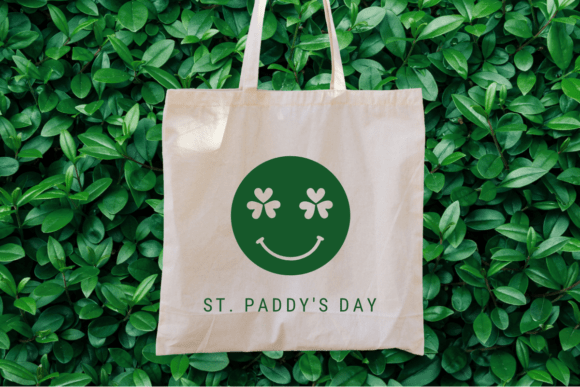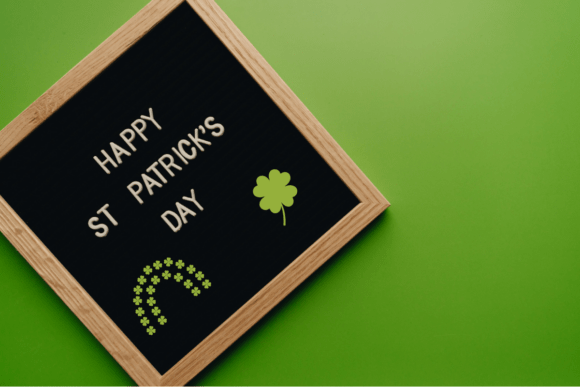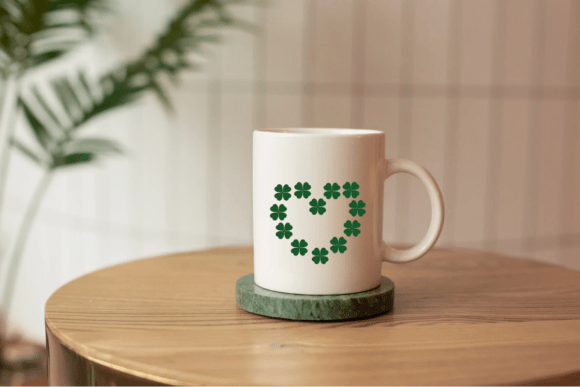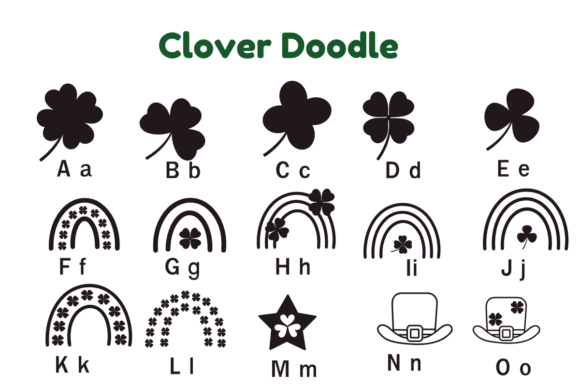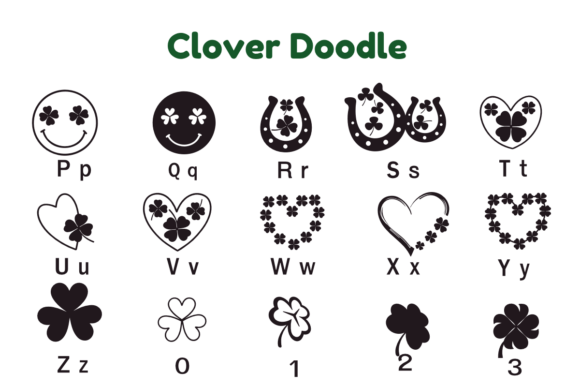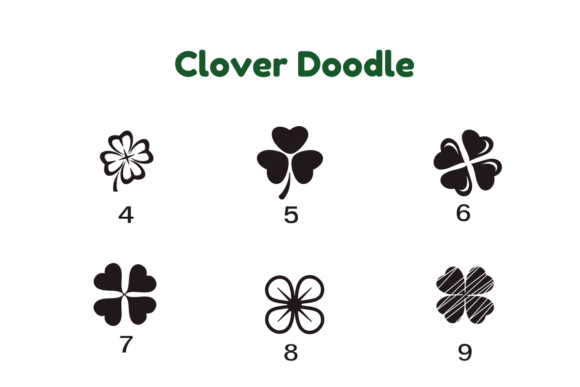
Clover Doodle Font: Elevate Your Creative Projects with a Sketched Theme
Are you a designer, crafter, or DIY enthusiast looking for a unique font to add a personal touch to your projects? Look no further than the Clover Doodle font, a charming dingbats font with a sketched theme that’s perfect for a wide range of creative applications. In this article, we’ll explore the features and benefits of Clover Doodle, and show you how it can enhance your wedding invitations, DIY projects, crafts, decorations, logos, and more.
What is Clover Doodle Font?
Clover Doodle is a dingbats font that features hand-sketched illustrations, giving it a distinctive and whimsical feel. The font is designed to add a touch of personality to your projects, making it ideal for crafty and creative endeavors. With its sketched theme, Clover Doodle is perfect for those who want to add a human touch to their designs.
Features of Clover Doodle Font
- Hand-sketched illustrations: Each character in Clover Doodle is carefully hand-drawn, giving the font a unique and organic feel.
- Dingbats font: Clover Doodle is a dingbats font, which means it’s comprised of illustrations and symbols rather than traditional alphabet characters.
- Versatile: Clover Doodle can be used for a wide range of projects, from wedding invitations to DIY crafts, decorations, and logos.
Uses for Clover Doodle Font
Clover Doodle is a versatile font that can be used for a variety of creative projects, including:
- Wedding invitations: Add a touch of whimsy and romance to your wedding invitations with Clover Doodle’s beautiful illustrations.
- DIY projects: Use Clover Doodle to add a personal touch to your DIY projects, such as scrapbooking, card making, and craft projects.
- Crafts: Clover Doodle is perfect for crafters who want to add a unique touch to their projects, such as knitting patterns, embroidery designs, and paper crafts.
- Decorations: Use Clover Doodle to create custom decorations, such as party banners, garlands, and gift tags.
- Logos: Clover Doodle can be used to create custom logos for your business or brand, adding a touch of personality and whimsy.
Benefits of Using Clover Doodle Font
There are many benefits to using Clover Doodle font in your creative projects, including:
- Unique and distinctive: Clover Doodle’s hand-sketched illustrations make it a unique and distinctive font that will set your projects apart.
- Time-saving: With Clover Doodle, you can easily add illustrations and symbols to your projects without having to create them from scratch.
- Cost-effective: Clover Doodle is a cost-effective solution for adding custom illustrations to your projects, compared to hiring a designer or illustrator.
Tips for Using Clover Doodle Font
Here are a few tips for getting the most out of Clover Doodle font:
- Experiment with different sizes and colors: Clover Doodle illustrations look great in a variety of sizes and colors, so don’t be afraid to experiment and find the look that works best for your project.
- Combine with other fonts: Clover Doodle pairs well with a variety of other fonts, so try combining it with your favorite fonts to create a unique look.
- Use for decorative elements: Clover Doodle is perfect for adding decorative elements to your projects, such as borders, frames, and illustrations.
Clover Doodle font is a versatile and charming dingbats font with a sketched theme that’s perfect for a wide range of creative projects. With its hand-sketched illustrations, ease of use, and cost-effectiveness, Clover Doodle is a great choice for designers, crafters, and DIY enthusiasts. Whether you’re creating wedding invitations, DIY projects, crafts, decorations, or logos, Clover Doodle is sure to add a touch of personality and whimsy to your designs.